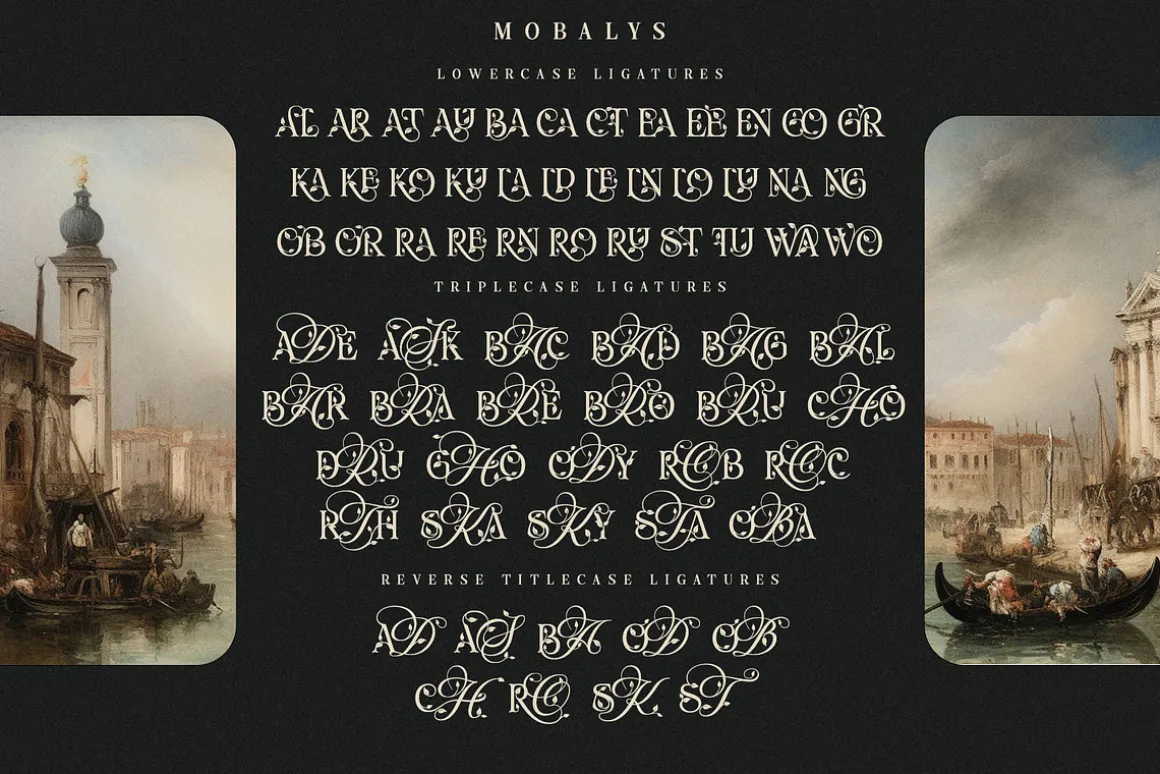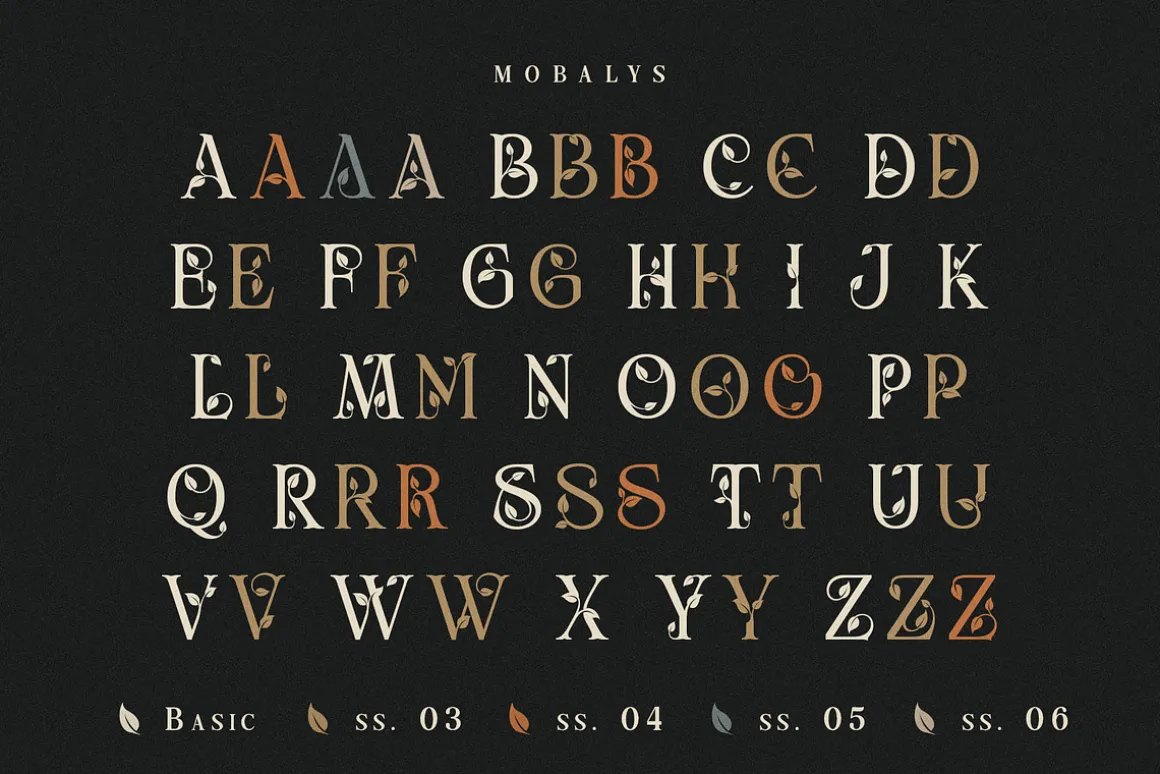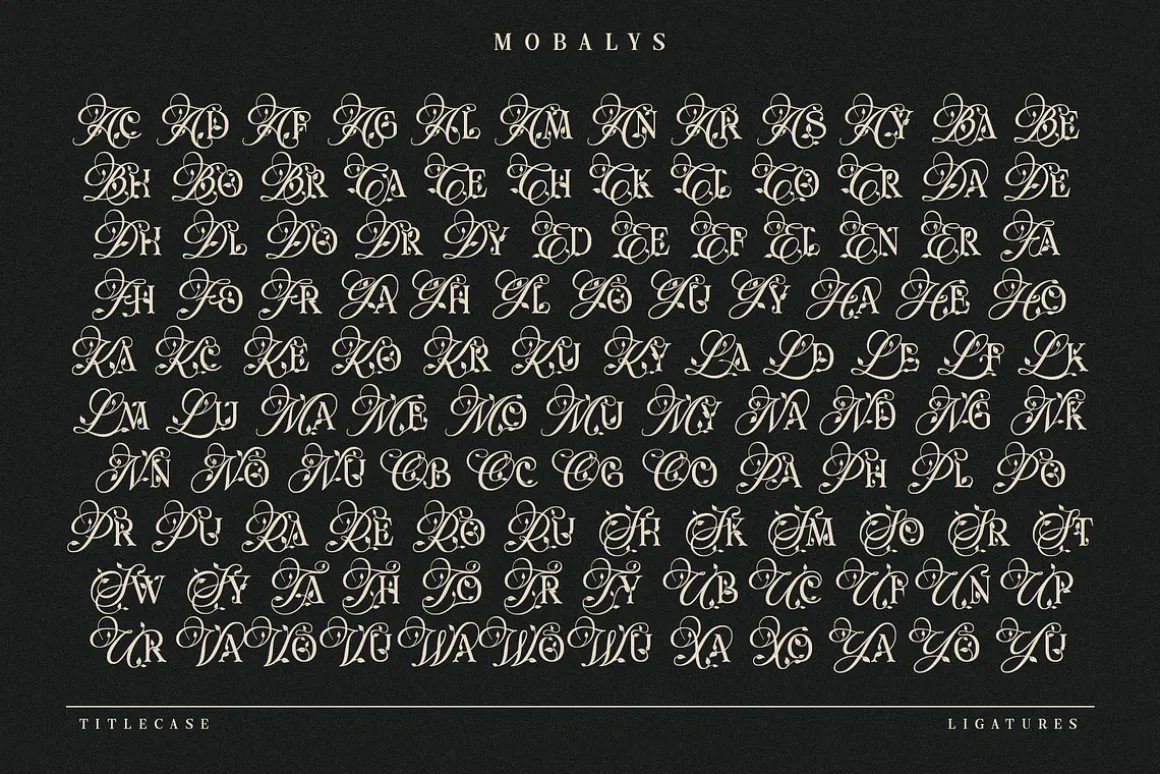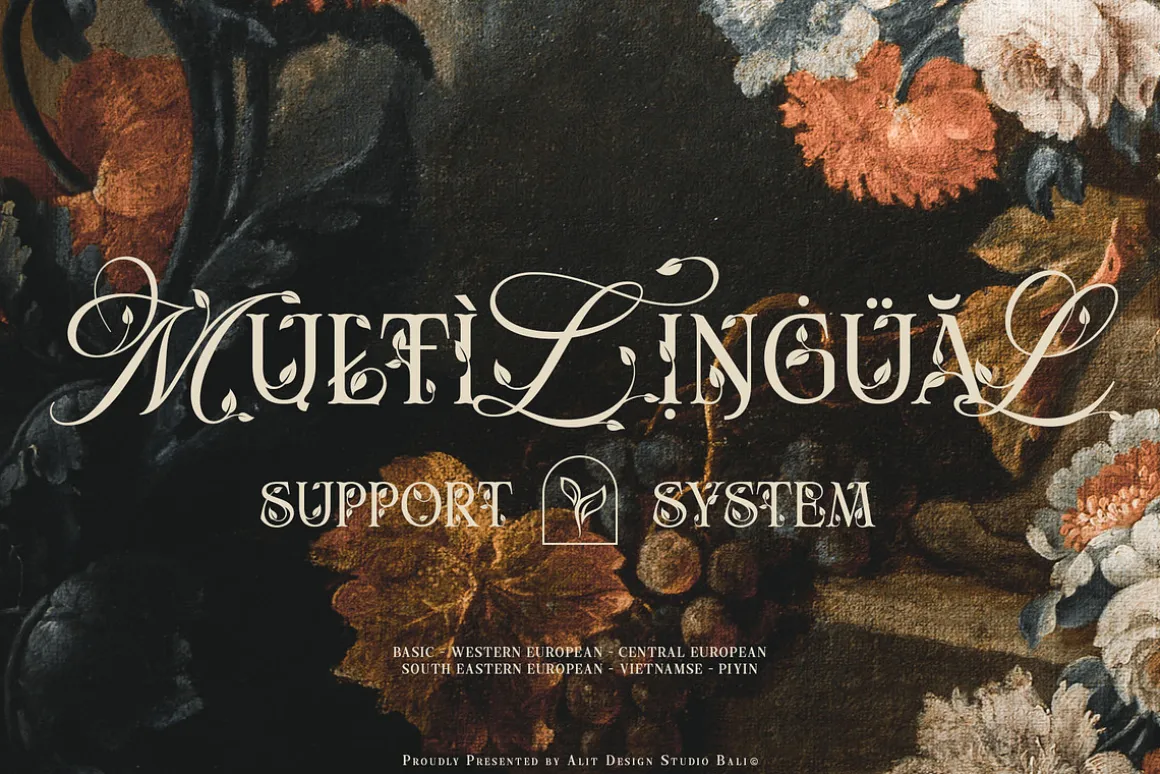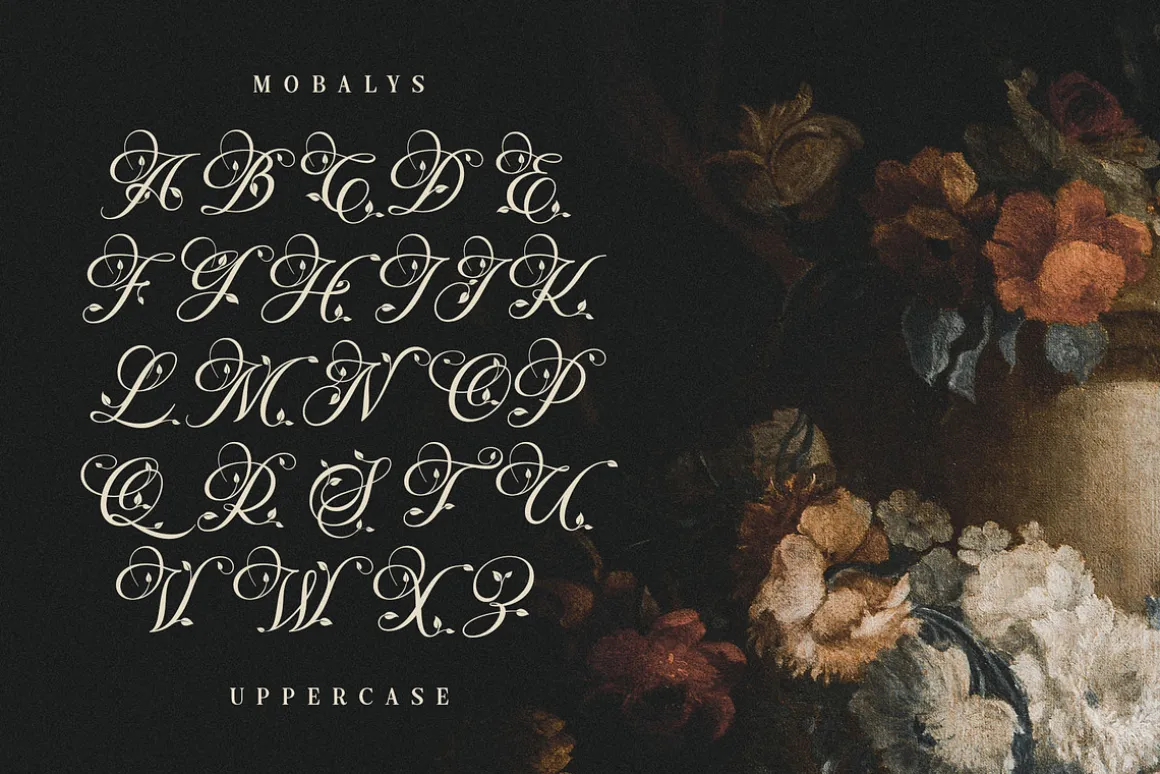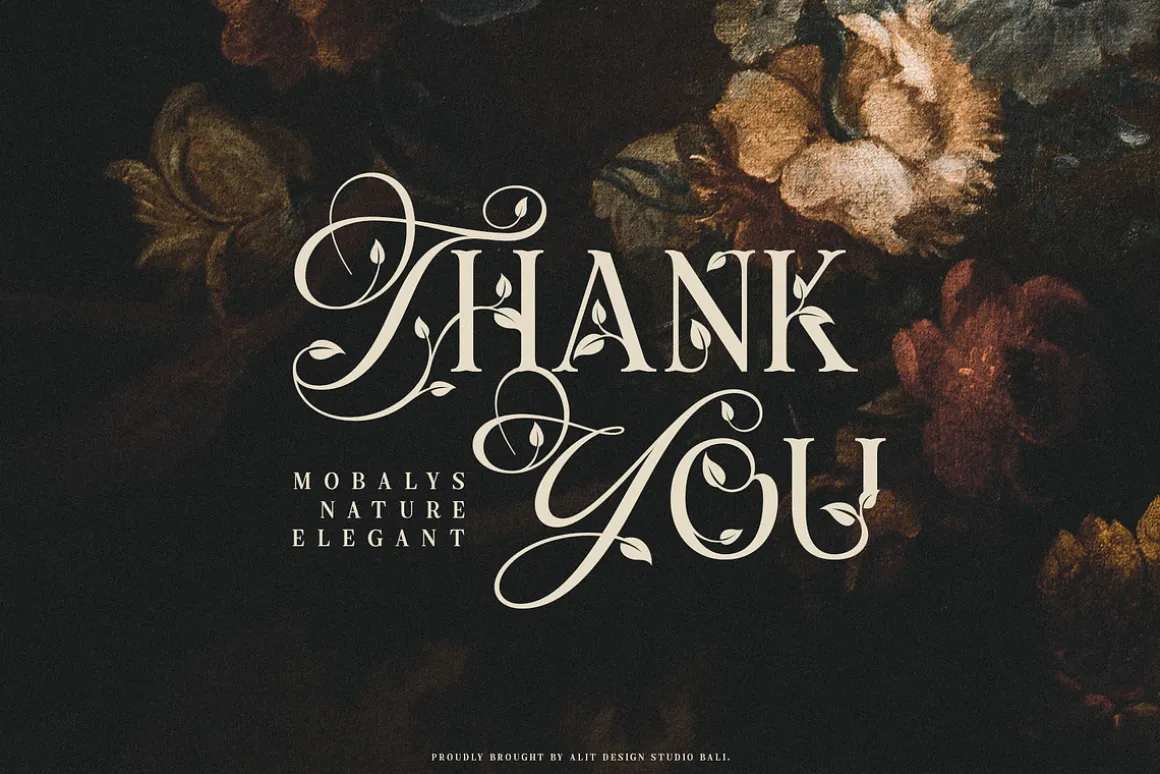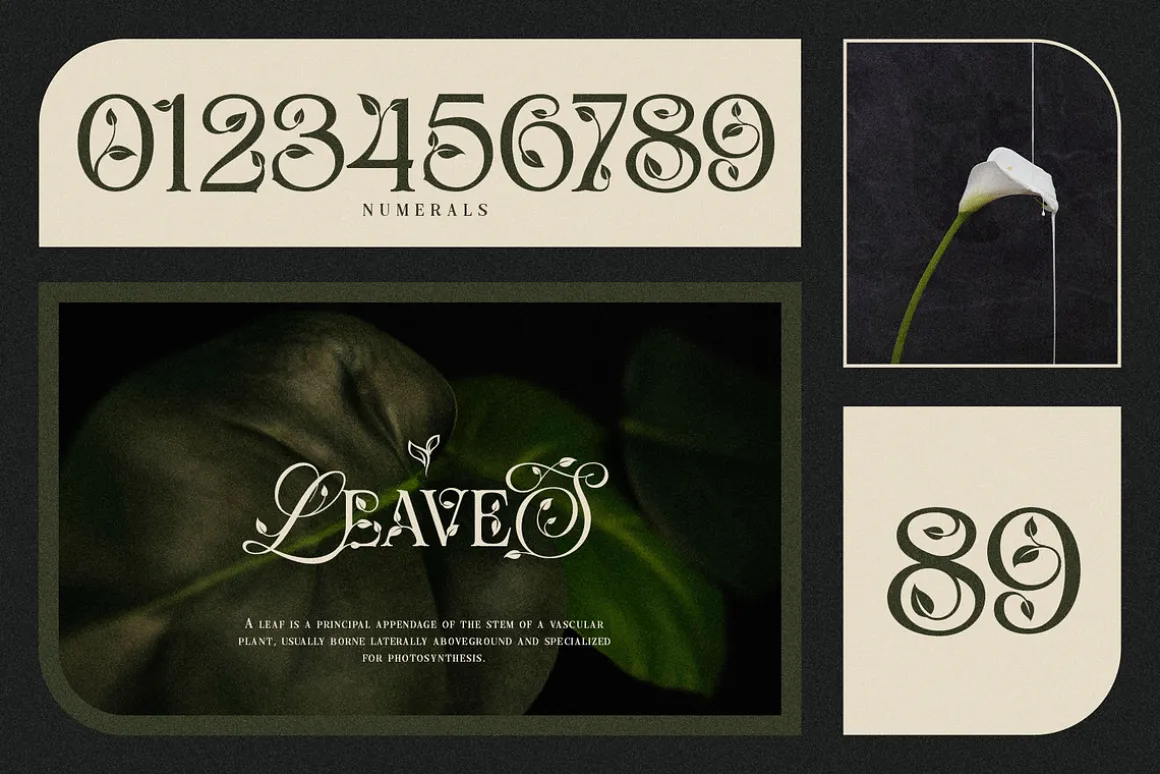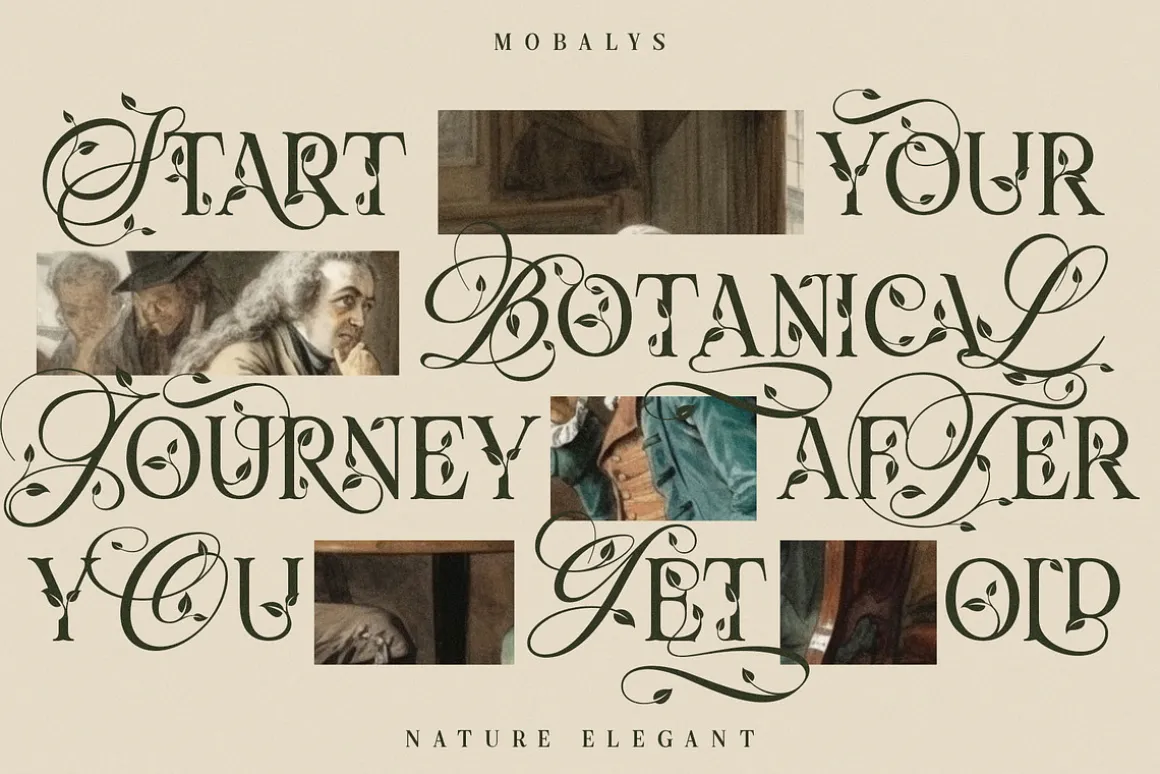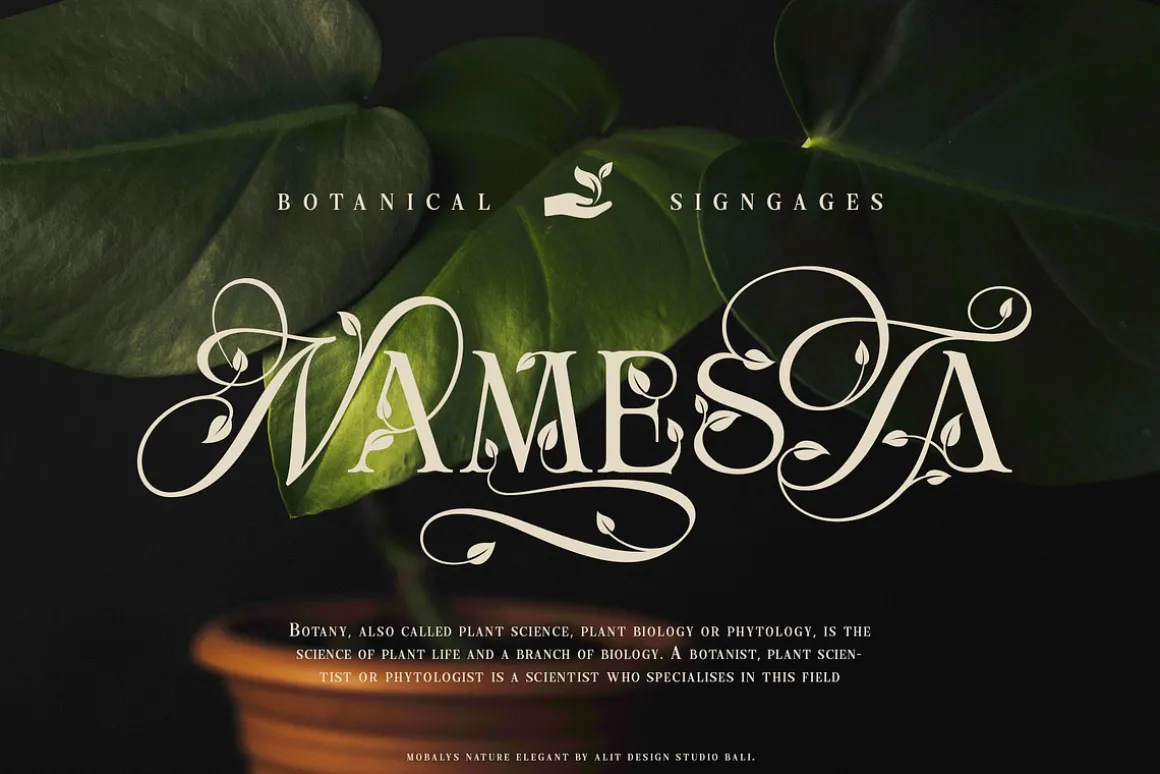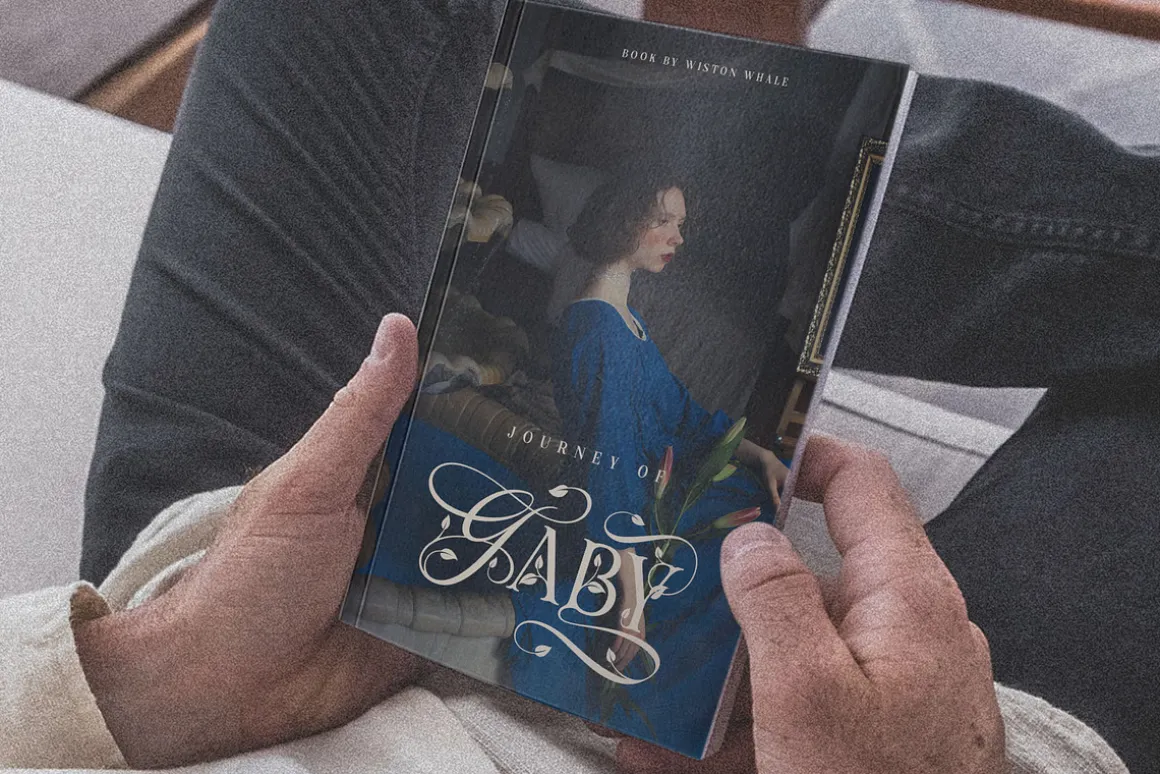
Introducing Mobalys – Where Elegance Meets Nature
Embrace the beauty of nature with Mobalys, a captivating font that seamlessly blends the grace of elegant script with the modern simplicity of sans serif. Immerse your designs in the lush greenery of a go-green theme, accompanied by stunning leaf illustrations that breathe life into your creations.
Elegance in Every Curve: Mobalys boasts an exquisite script style that adds a touch of sophistication to your projects. Each curve and swirl is carefully crafted to exude elegance.
Modern Simplicity: The sans serif elements bring a contemporary flair, ensuring versatility in usage. Whether it’s a sleek logo or a clean headline, Mobalys adapts effortlessly.
Nature’s Embrace: Dive into a world of greenery with Mobalys. The font is adorned with enchanting leaf illustrations, adding a touch of organic charm to your designs. Let the beauty of nature seamlessly integrate into your projects.
Extensive Character Set: With 730 characters at your fingertips, Mobalys provides a diverse range of options to express your creativity. Explore a plethora of possibilities with ligatures, alternates, swashes, and more.
Elevate your designs with Mobalys, where the synergy of elegance and nature creates a visual masterpiece. Immerse your audience in the refreshing green world and let your creativity flourish. Mobalys is not just a font; it’s an experience.